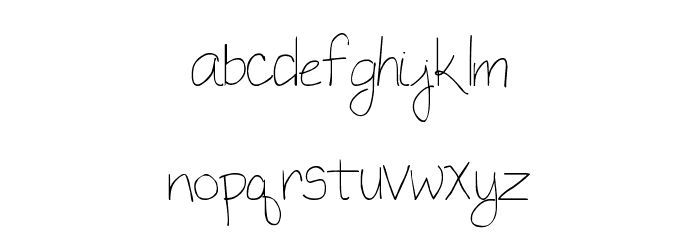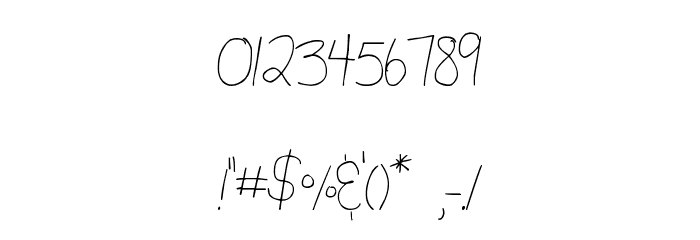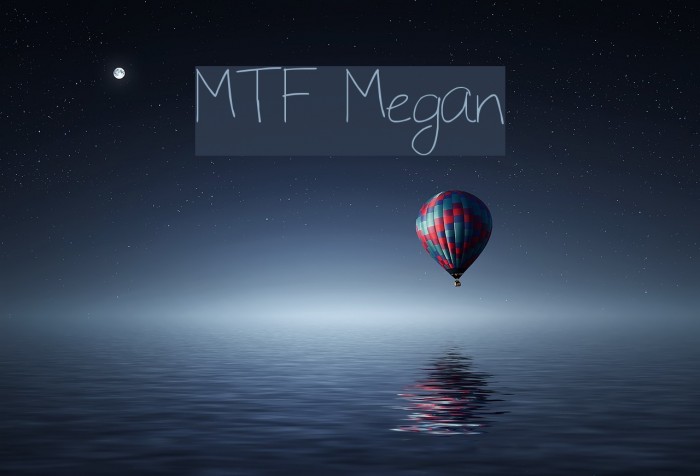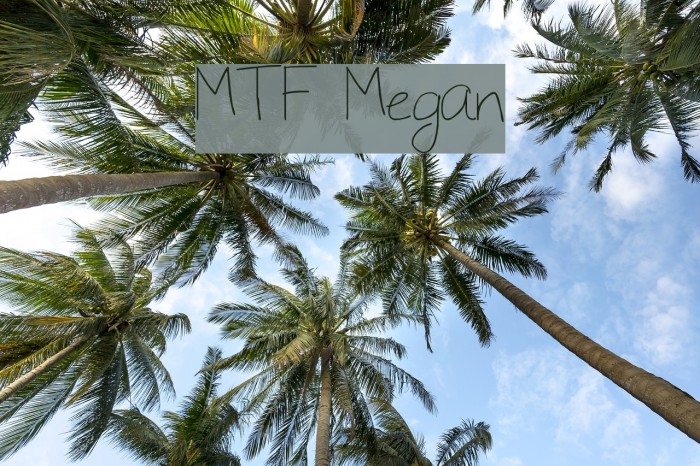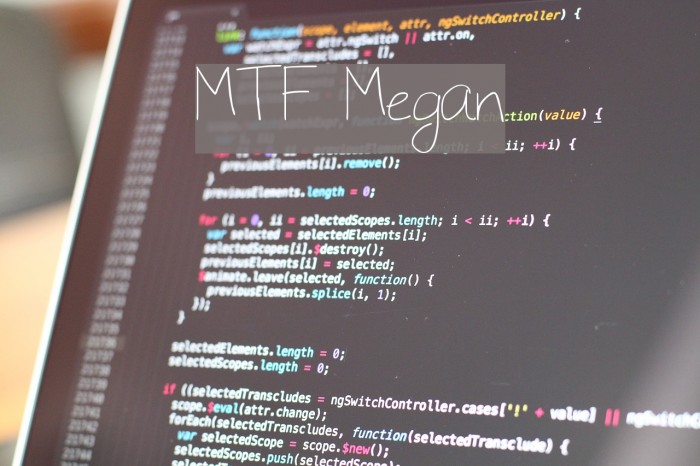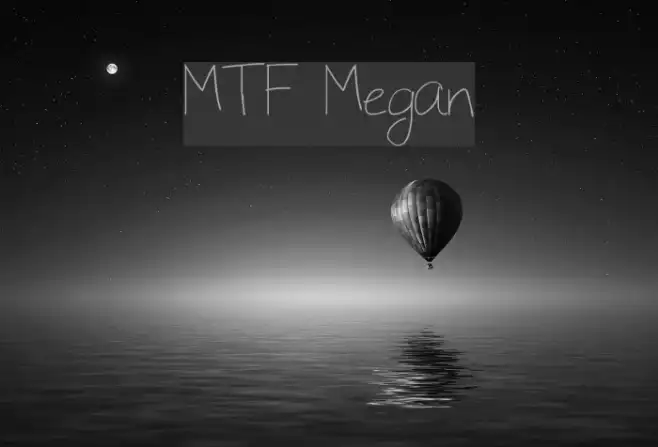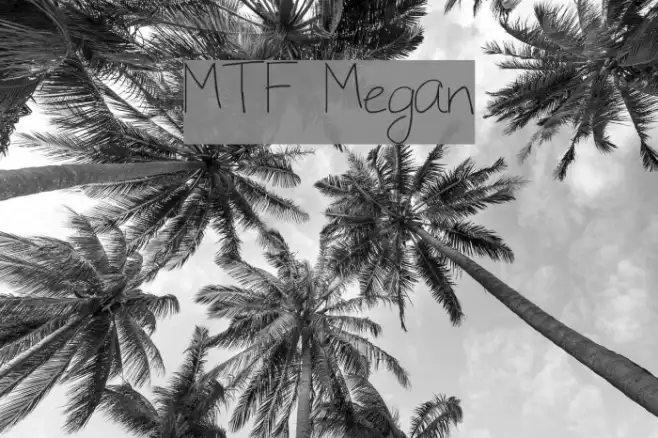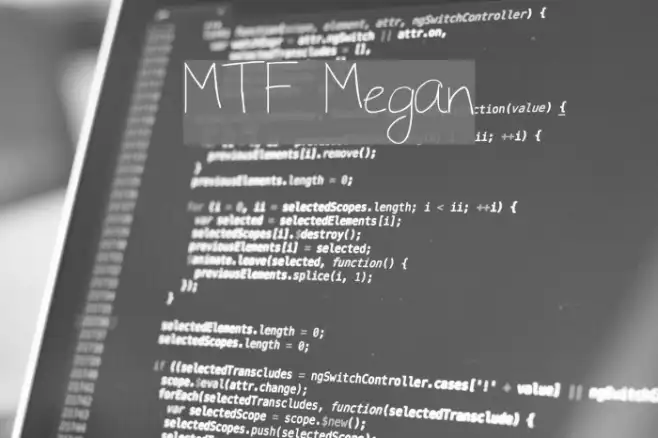
MTF Megan Font
This font exhibits a playful and whimsical handwritten style, characterized by its loose and flowing letterforms. The strokes are thin and slightly irregular, giving it a casual and informal appearance. The uppercase letters are tall and narrow, while the lowercase letters maintain a consistent height, adding to the font's charm. The numerals are well-integrated, matching the overall style with their slender and slightly quirky design. Special characters are included, maintaining the same playful aesthetic. This font is ideal for projects that require a personal touch or a friendly, approachable feel.
A playful, handwritten font with thin, flowing strokes and a casual style.
- Proposed Projects: Greeting cards, invitations, children's books, personal blogs, and creative branding.
- Category: Handwritten
- Weight: Light
- Overall Style: Casual, Playful
- Use Case: Headlines, Informal text, Creative projects